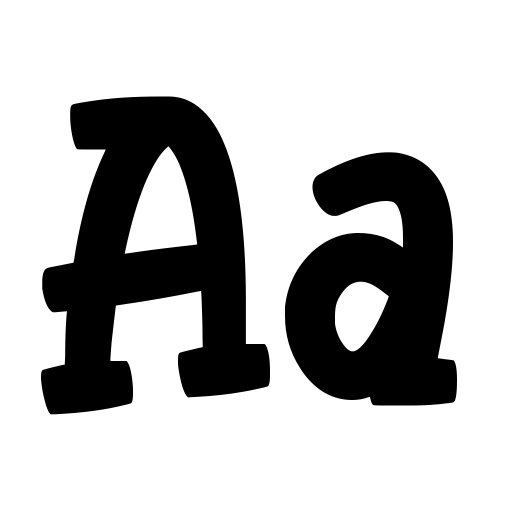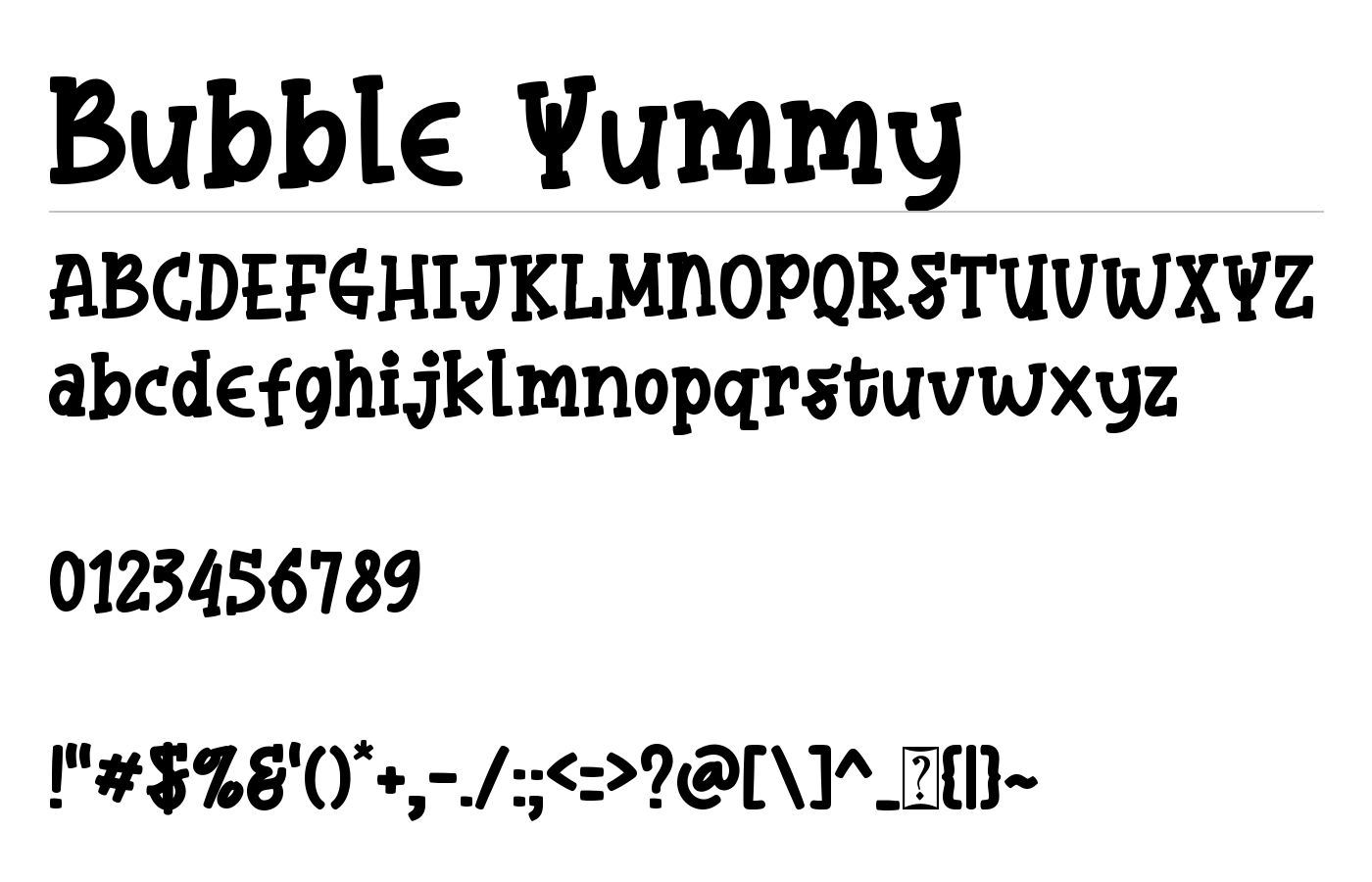
Bubble Yummy is a playful, bold sans serif font with rounded, bubbly letterforms that give it a fun and friendly vibe. Its moderately condensed width and medium contrast strokes make it eye-catching without losing readability, perfect for lively and informal designs. This font works great for children’s products, casual branding, and creative headlines where a cheerful and approachable tone is desired.
Bubble Yummy Font
About Bubble Yummy Font